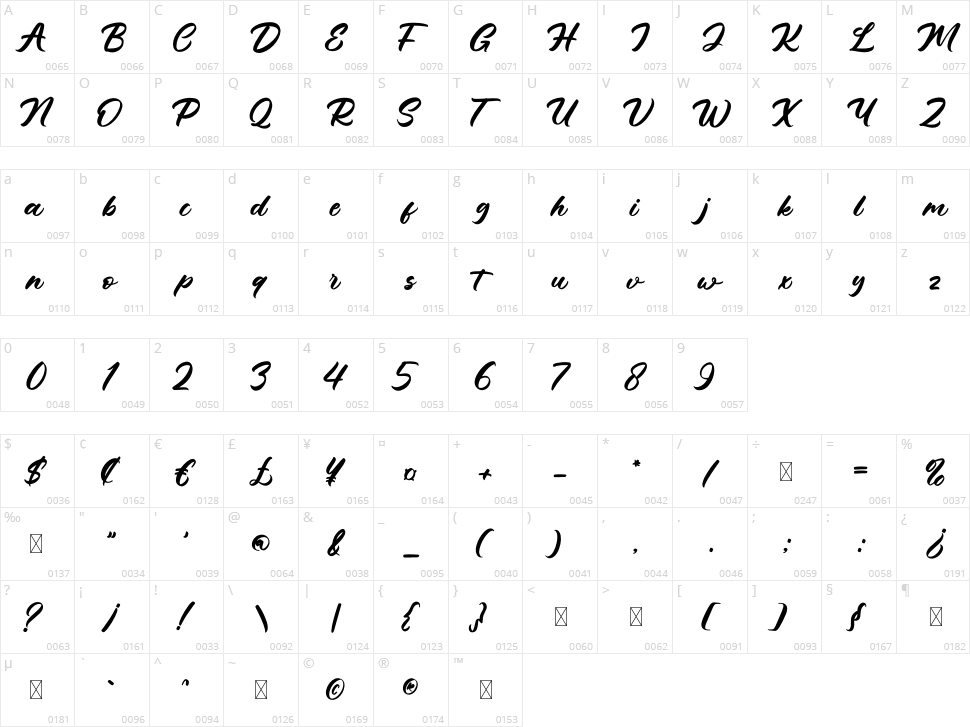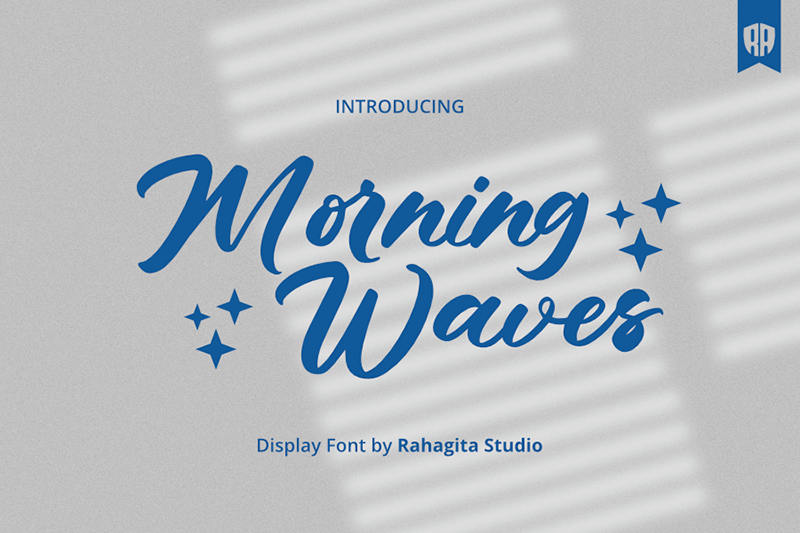
Morning Waves
Immerse your designs in the refreshing essence of the early morning with Morning Waves Font. Inspired by the gentle breeze preceding rainfall, this font effortlessly captures a cute and bold aesthetic. Made for versatility, it serves as the perfect choice for logos, packaging, brochures, cover titles, fashion statements, and enchanting wedding invitations. Elevate your design with the lively and beautiful touch of Morning Waves, infusing every project with a charming vibrancy that resonates with the tranquility of a misty morning.